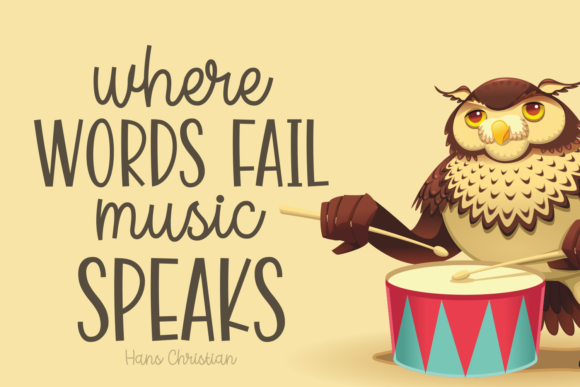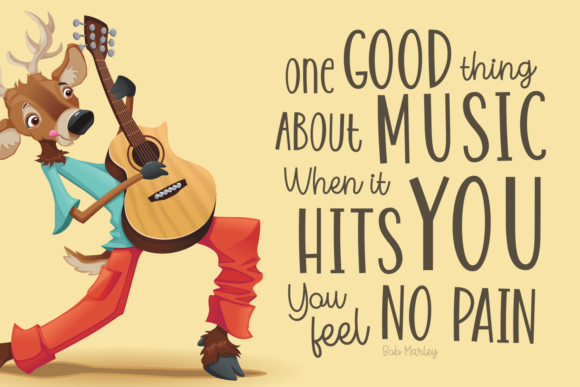
The Aprilio Super Font
db-ku.com - Script & Handwritten -- The Aprilio Super is an amazing font. It includes 2 playful styles which can combined perfectly, giving you the opportunity to create multiple unique designs in an instant.